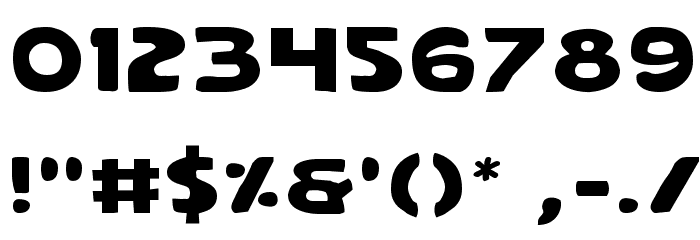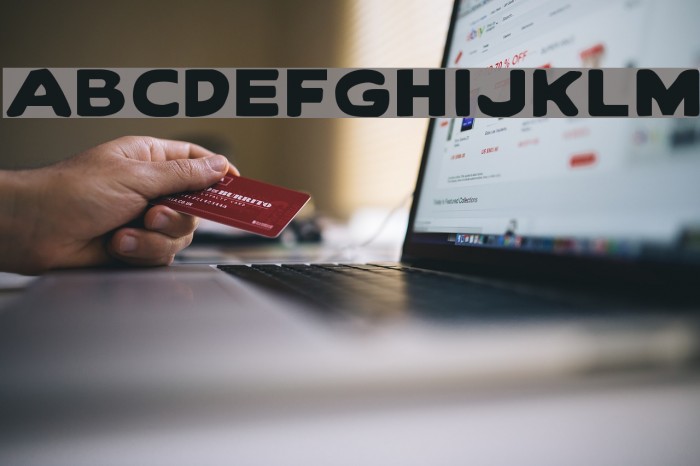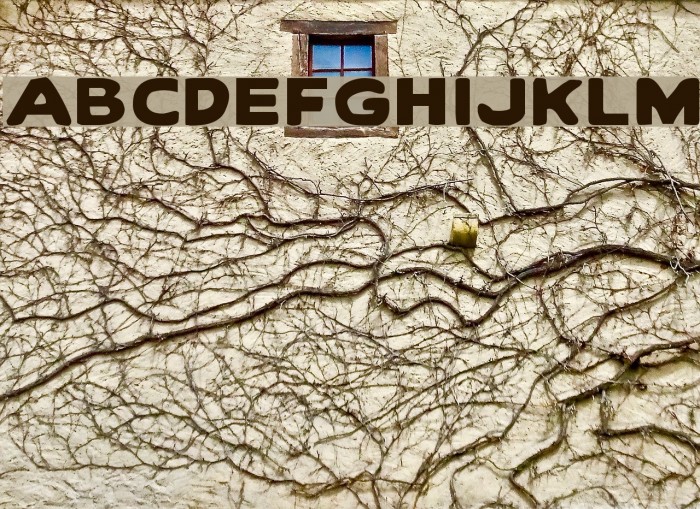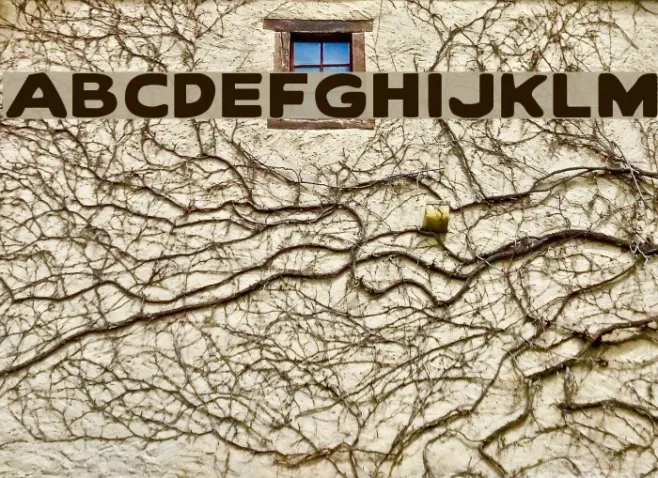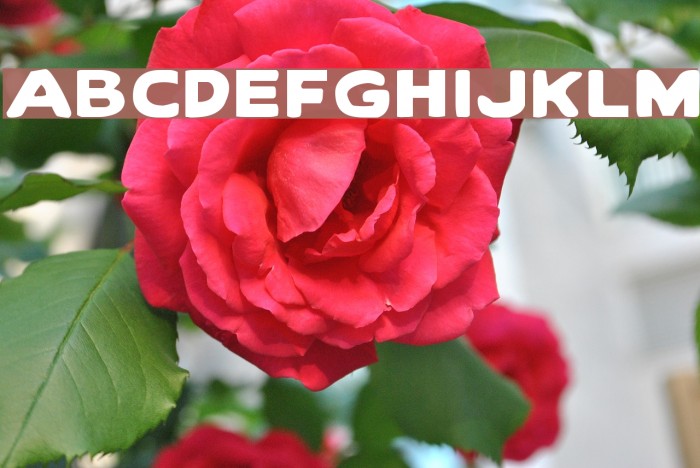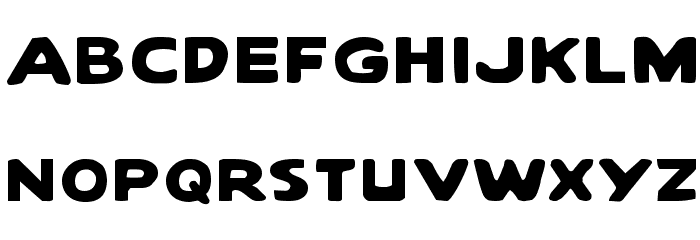
Quartermain Font
Quartermain Description
This font features bold, rounded characters with a playful and friendly appearance. The letters are thick and have a consistent stroke width, giving them a strong presence. The rounded edges soften the overall look, making it approachable and suitable for a variety of uses. The numerals and special characters maintain the same boldness and rounded style, ensuring uniformity across all glyphs. This font's design is modern yet retains a classic feel due to its simplicity and clarity, making it versatile for both digital and print media.
| Proposed Projects | Ideal for children's books, playful branding, posters, and digital media where a friendly tone is desired. |